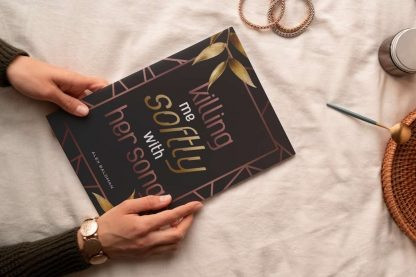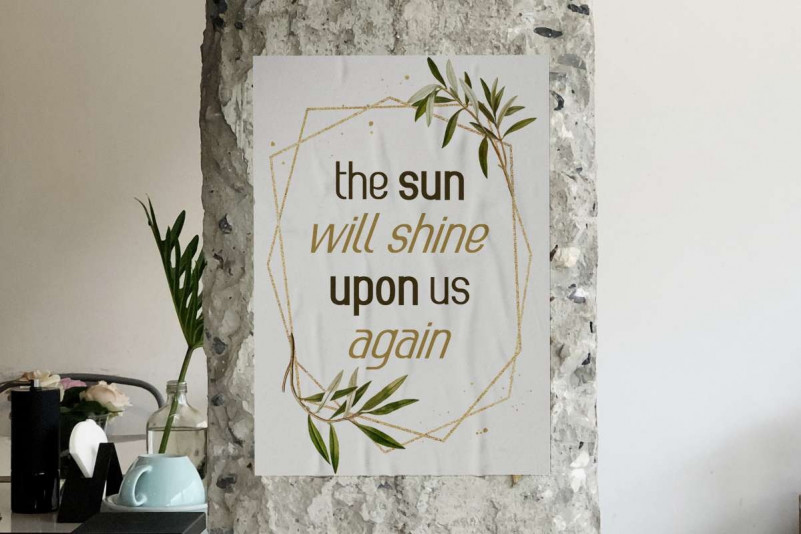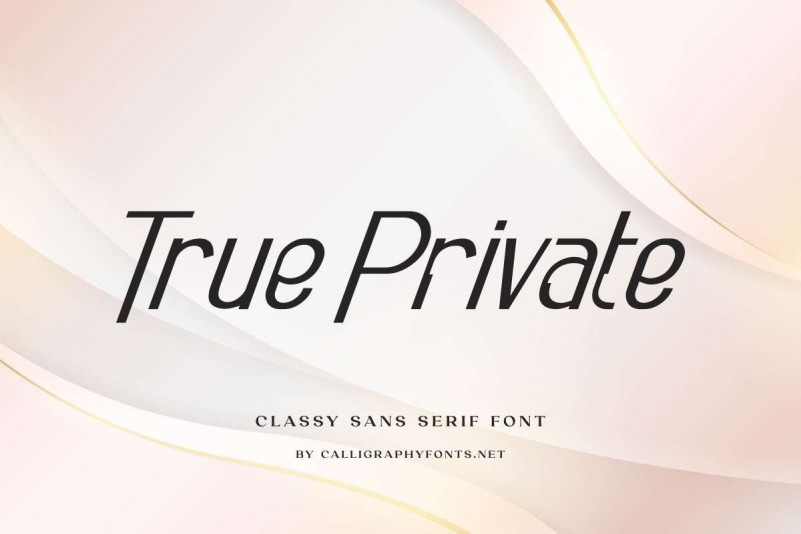
True Private Font
True Private Sans Serif Font is a classy sans serif font which is very interesting so it will look futuristic packed in 3 types of styles, namely: Regular, Italic, and Bold. Slim and tall style with several unique shapes present such as 3D makes it more flexible for various designs, billboard, body text, header, mockup, poster, product label, shopping bag brand, etc.
True Private Font with technology theme will take you to the future, because this font is so sophisticated and timeless that it will be suitable for any related industry, such as author, barbershop, café, fashion item, film, game, handicraft, jewelry, race, skincare, sport, etc.